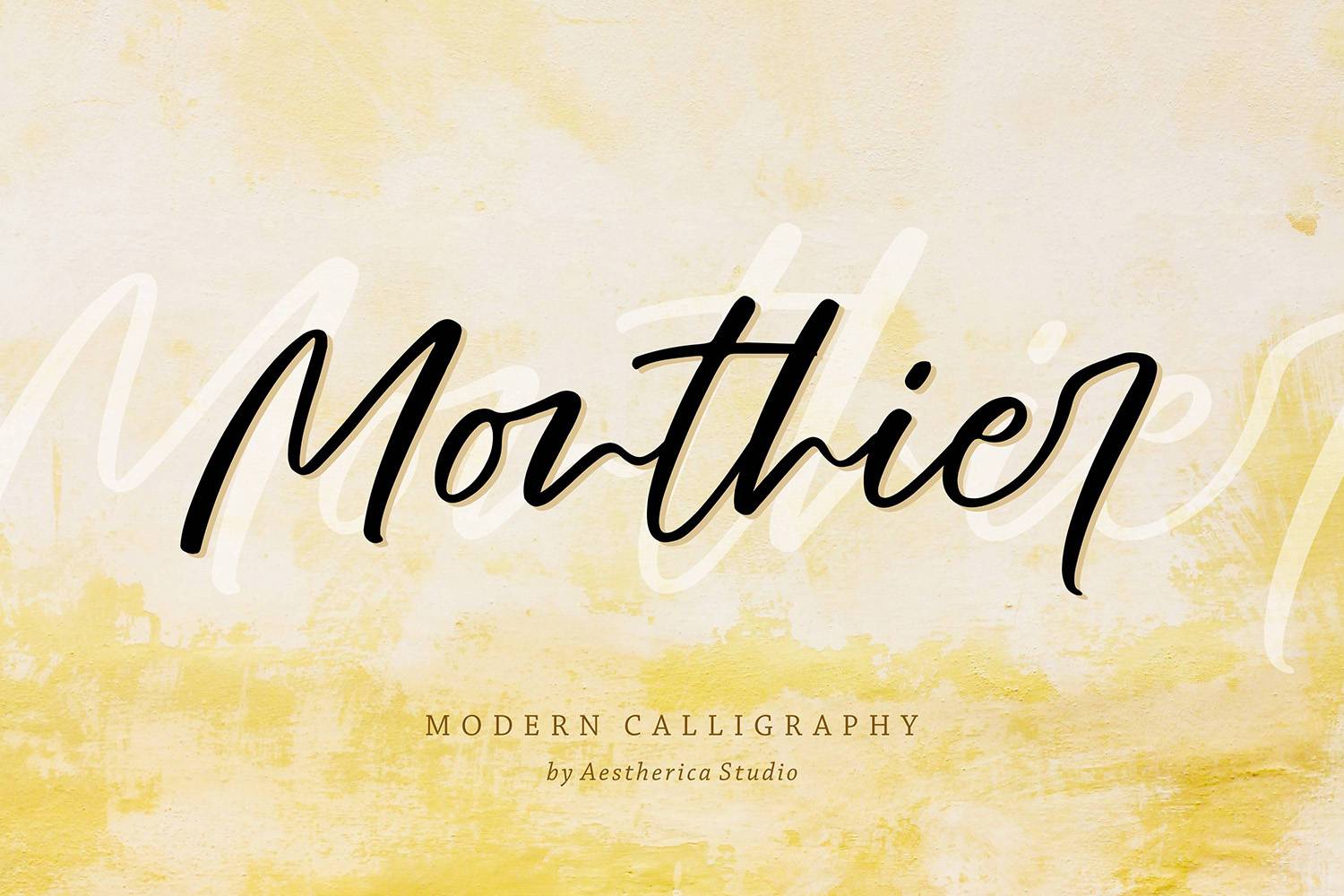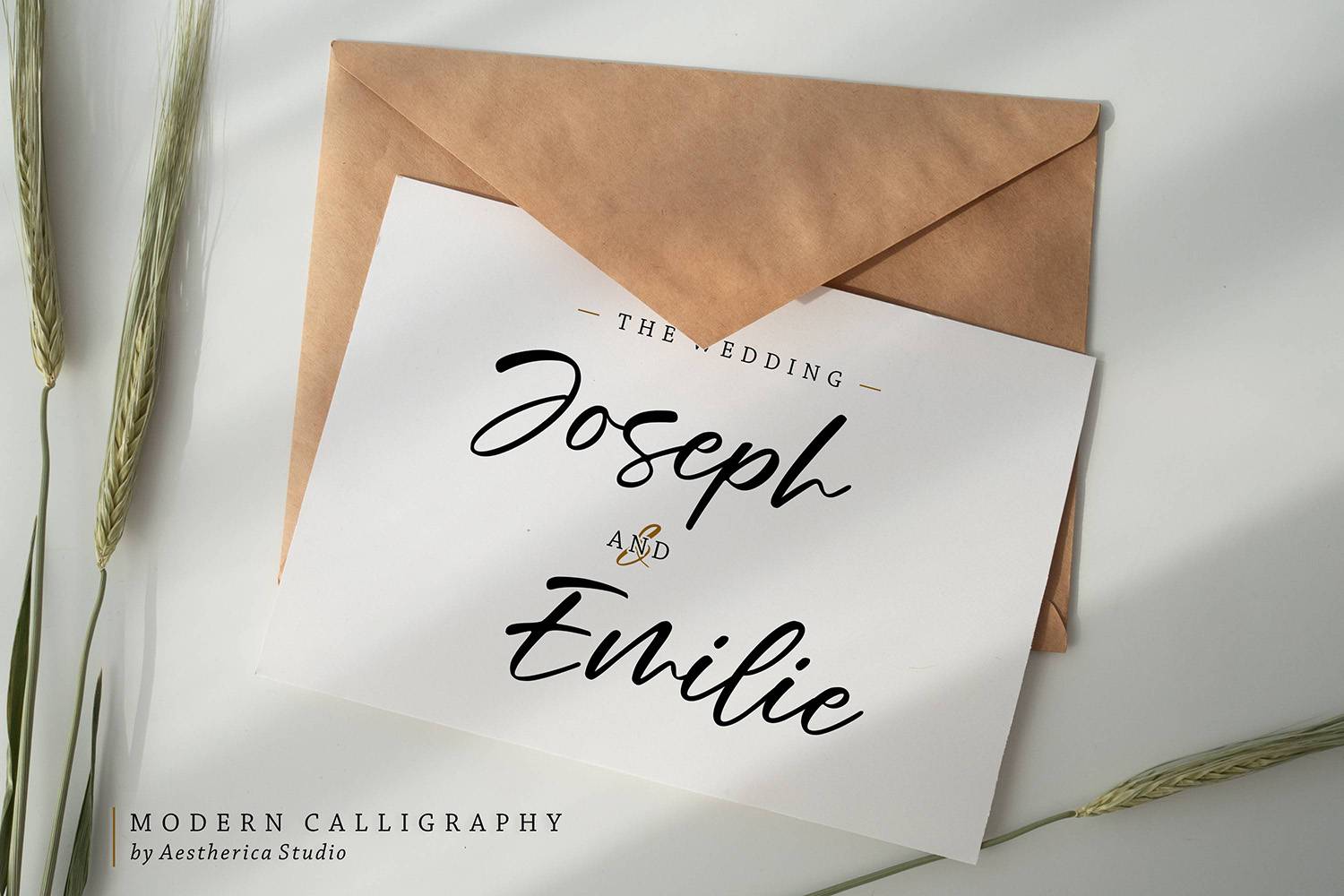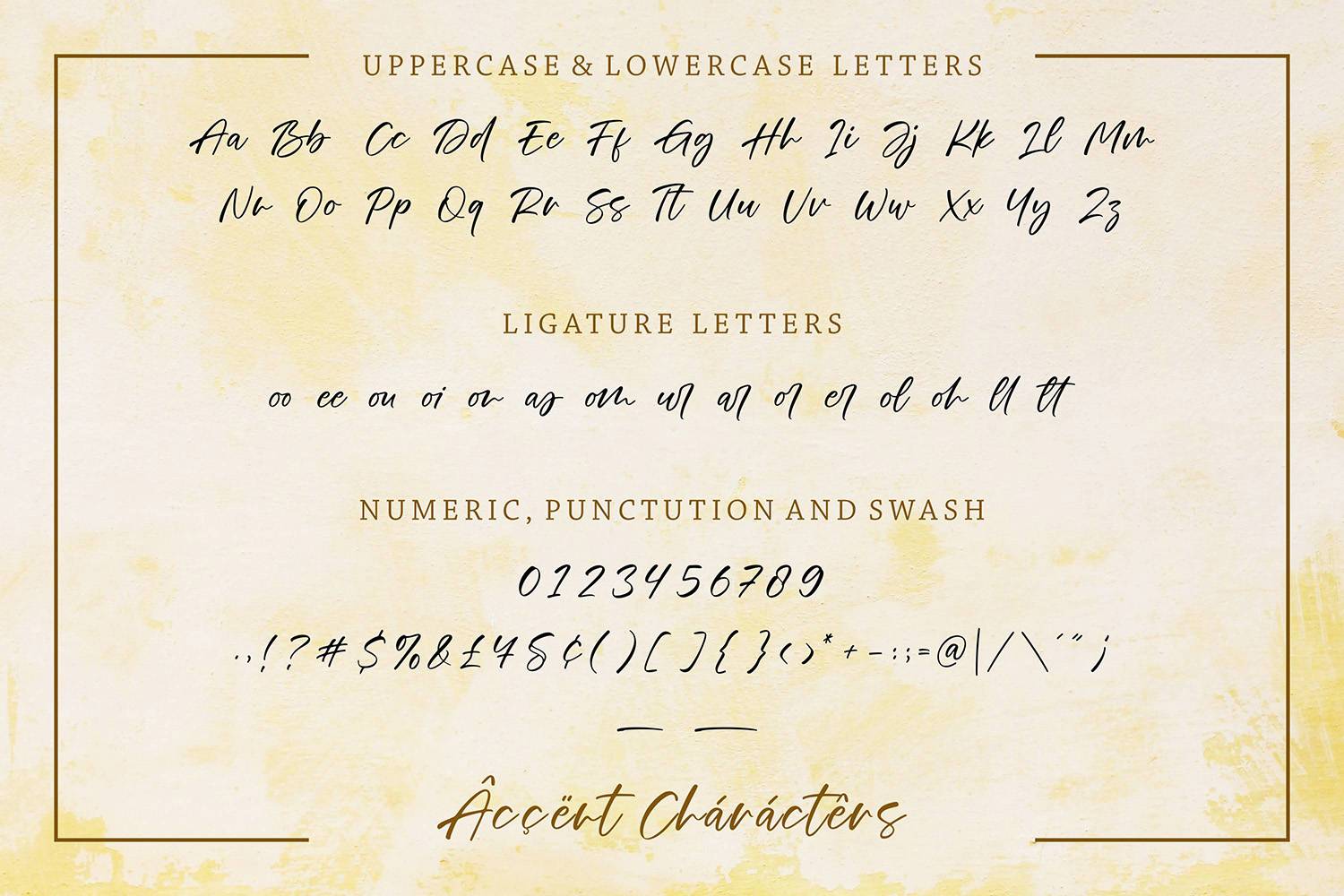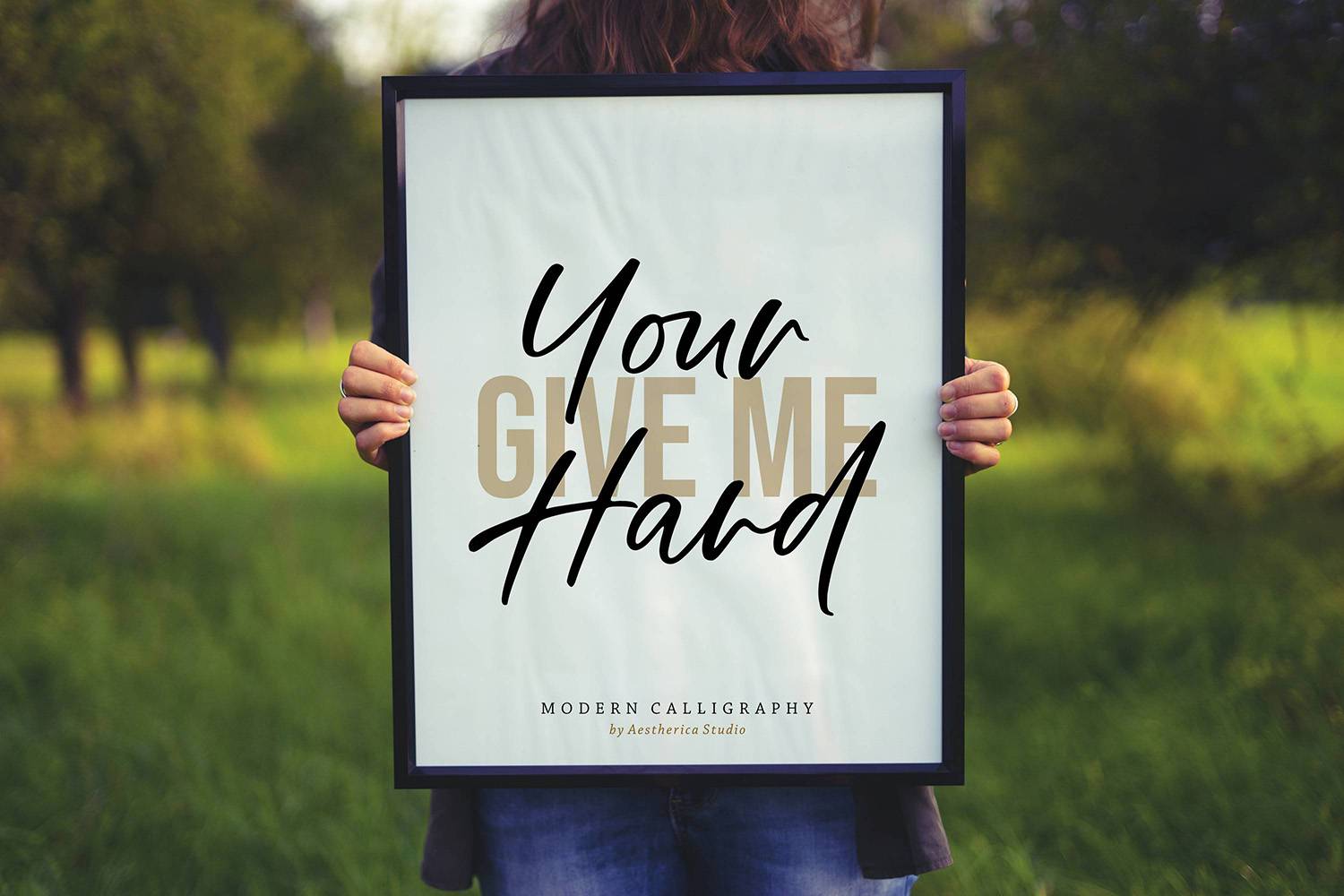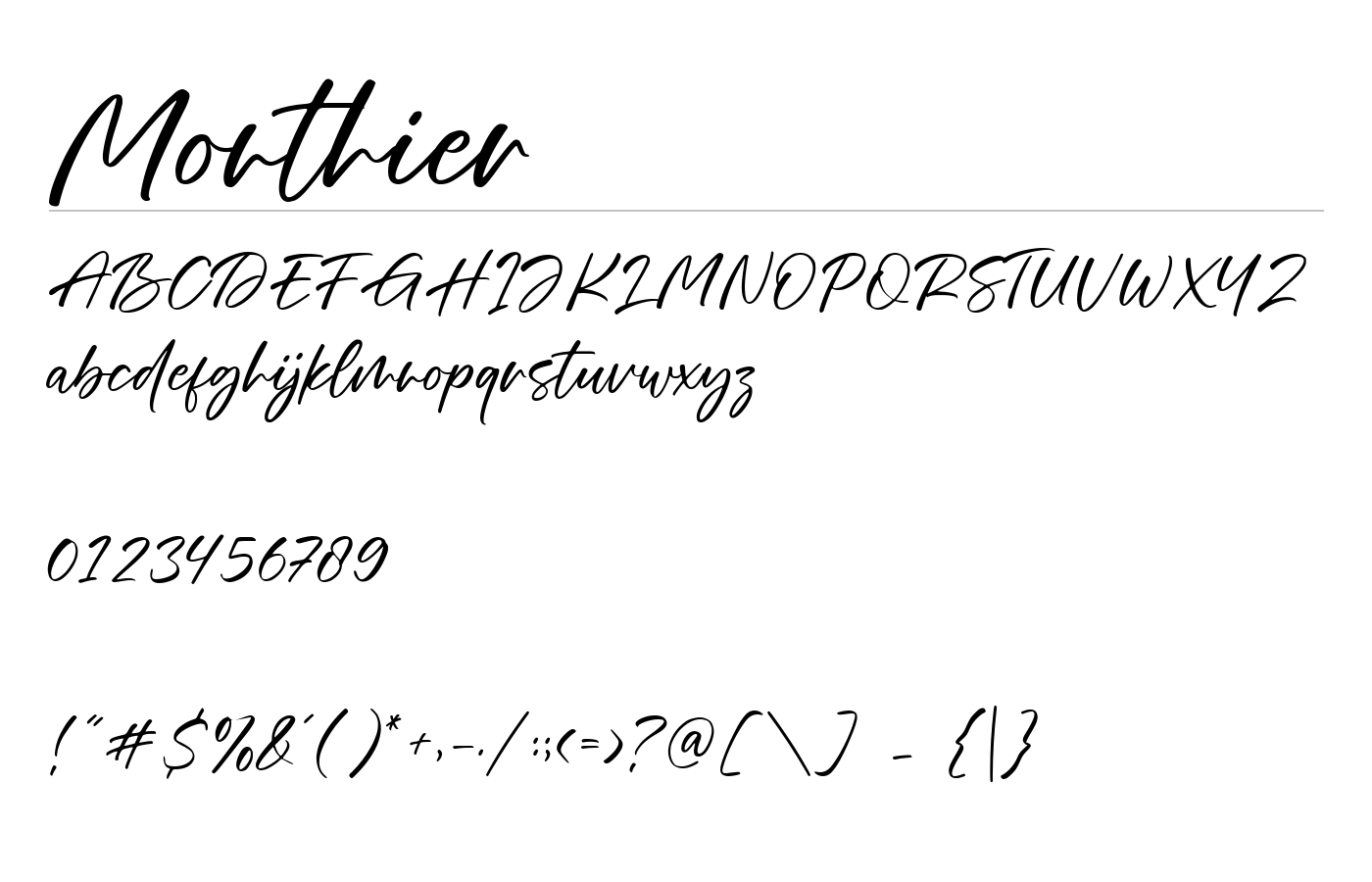
Monthier is an elegant, modern script font featuring smooth, flowing strokes that mimic natural handwriting with a stylish, casual flair. Its balanced weight and clean curves make it perfect for adding a personal, sophisticated touch to branding, invitations, and creative designs. This font works beautifully in logos, social media graphics, and headlines where a graceful yet approachable feel is desired.
Monthier Font
About Monthier Font